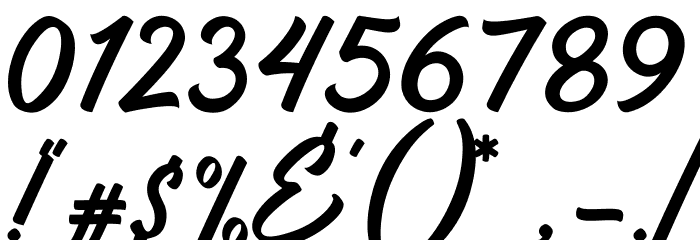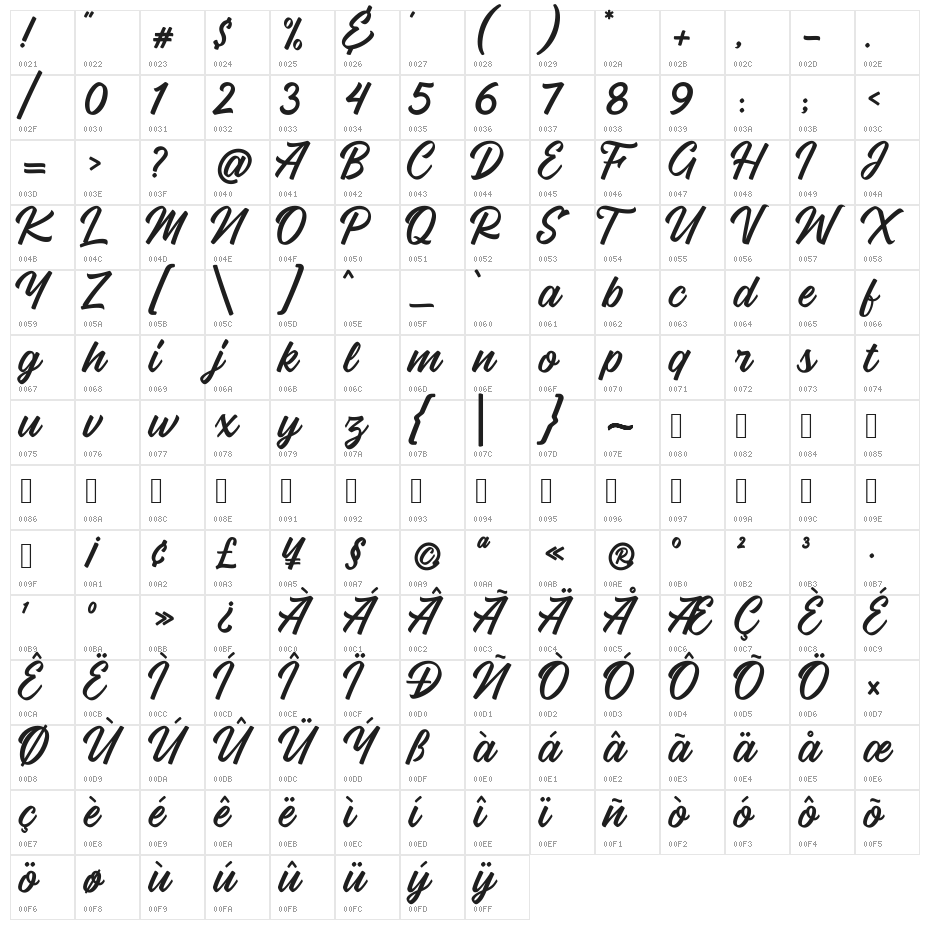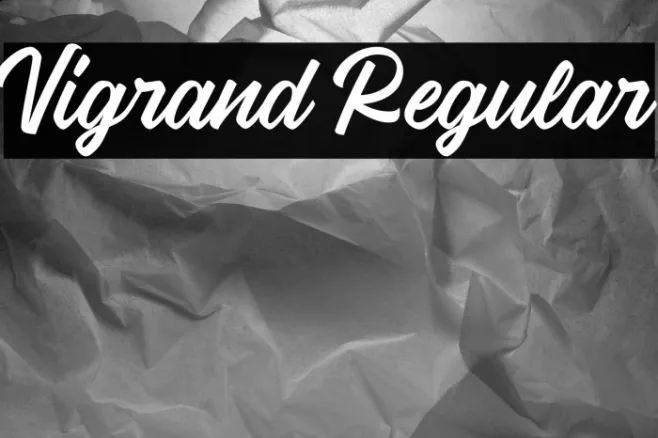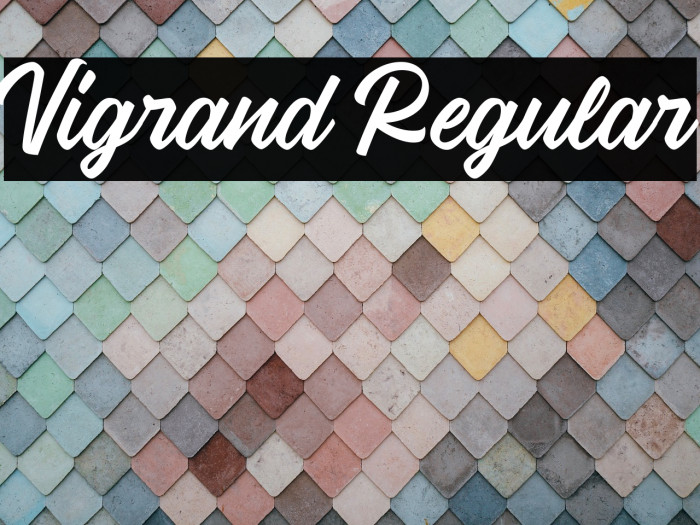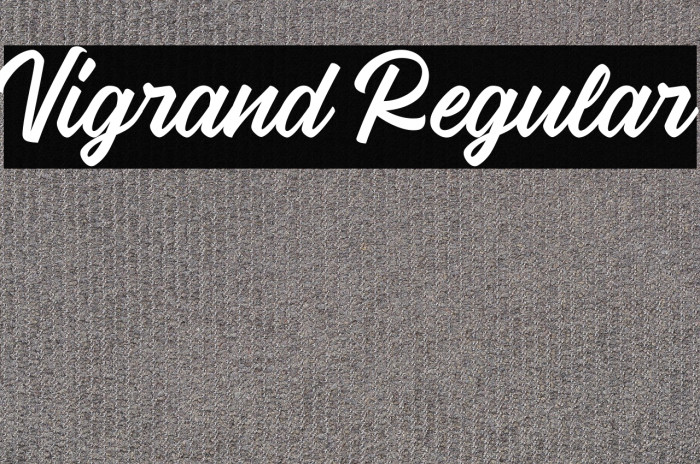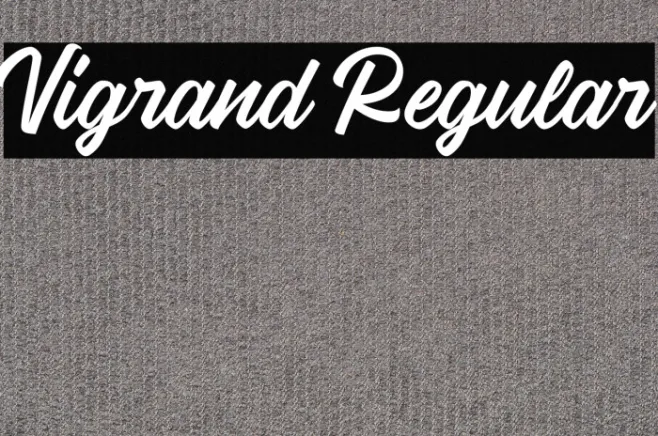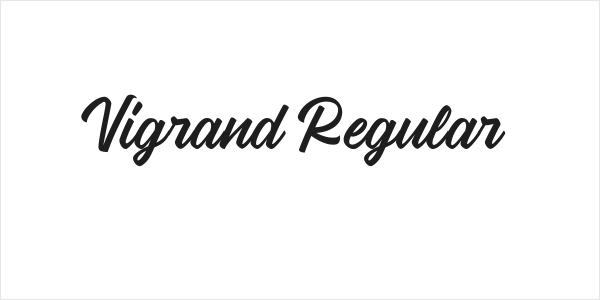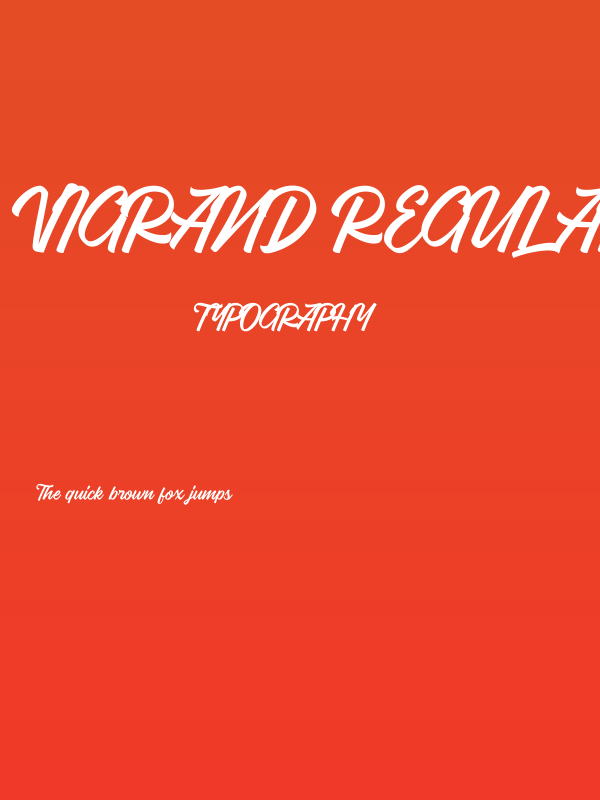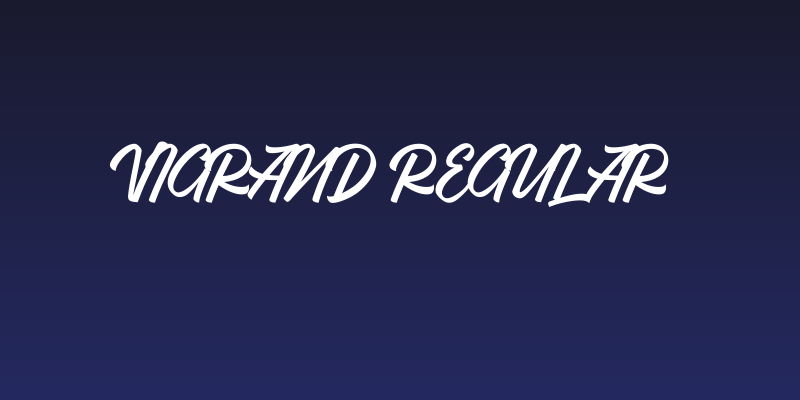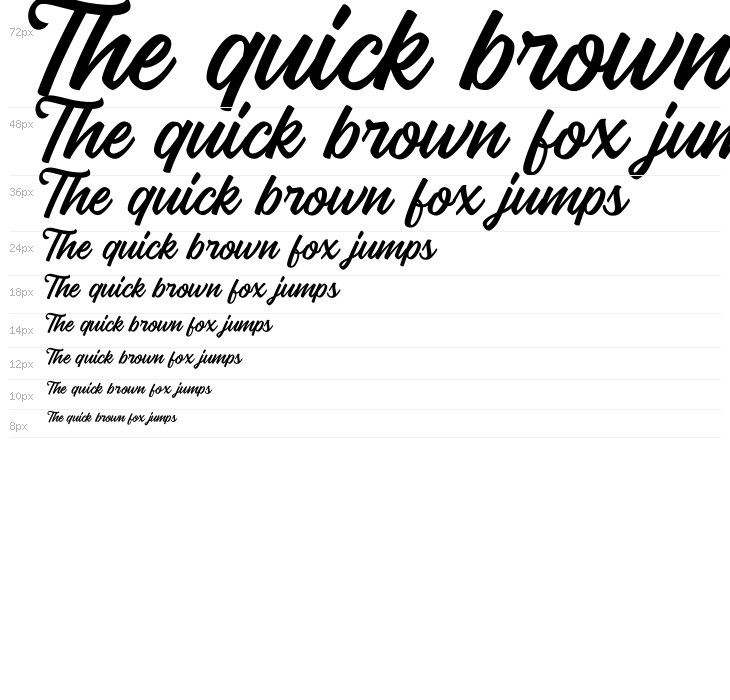
Vigrand Regular Font
Vigrand Regular Description
This font features a bold and expressive script style, characterized by its fluid, cursive strokes that convey a sense of elegance and dynamism. The uppercase letters are slightly larger and more pronounced, while the lowercase letters maintain a consistent flow, enhancing readability. The numerals and special characters are designed to complement the overall script style, ensuring a cohesive look across all text elements. The font's design is well-suited for creating impactful and stylish text, making it ideal for projects that require a touch of sophistication and flair.